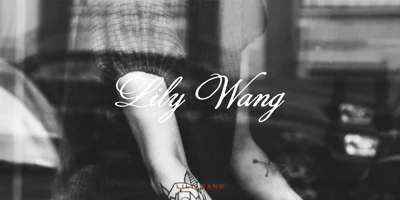
Lily Wang Font
Lily Wang Font is perfect for Asian-inspired branding, wellness centers, spa communications, zen lifestyle brands, meditation apps, organic products, and serene design applications. This graceful typeface brings Eastern elegance and peaceful sophistication to mindful design projects.
Lily Wang Font is exciting because it embodies the serene beauty and flowing grace of Asian calligraphy with its delicate letterforms that convey tranquility and mindful elegance while maintaining exceptional readability and peaceful appeal across wellness applications.
The Lily Wang Font family includes regular and flowing variations with elegant character details and peaceful styling elements. This tranquil collection provides designers with serene options for creating memorable and mindfully elegant brand experiences.
Lily Wang Font offers designers access to a gracefully crafted typeface that captures the essence of Eastern serenity and mindful beauty. This elegant font features delicately designed letterforms with flowing details that create immediate associations with wellness, meditation, and peaceful sophistication. The typeface showcases balanced proportions and zen aesthetics that enhance mindful communications while maintaining professional functionality and broad accessibility. Its serene character makes it particularly suitable for wellness brands and lifestyle companies that require typography capable of conveying tranquility, mindfulness, and Eastern elegance. Lily Wang Font delivers exceptional peaceful impact for applications where aggressive fonts feel inappropriate for wellness-focused communications and serene lifestyle branding. The font's zen appeal and elegant aesthetic make it an essential tool for designers working on projects that require typographic expression of mindfulness, Eastern beauty, and peaceful sophistication that resonates with audiences seeking authentic wellness experiences and tranquil visual communication.